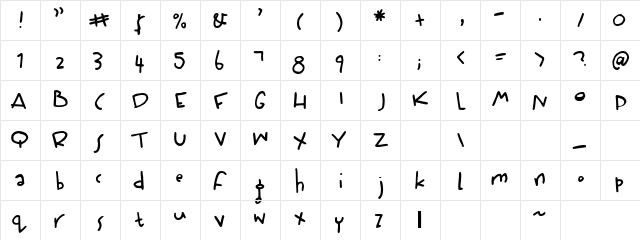
Leo Tolstoy Regular
Design Context for Leo Tolstoy Typeface
Leo Tolstoy is a composed and adaptable typeface that performs quietly and consistently across a wide range of design contexts.